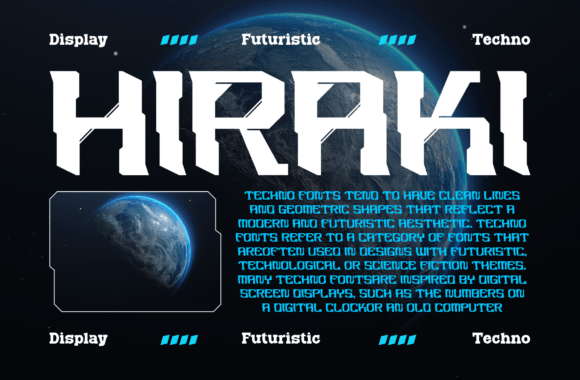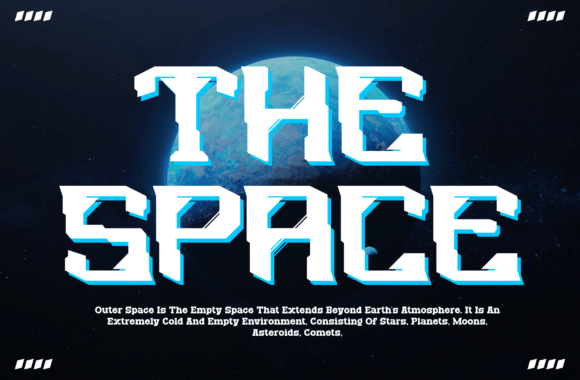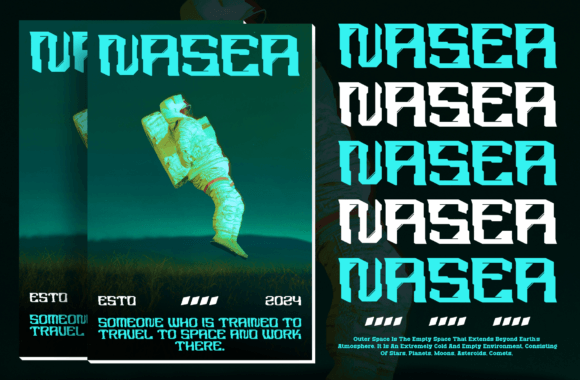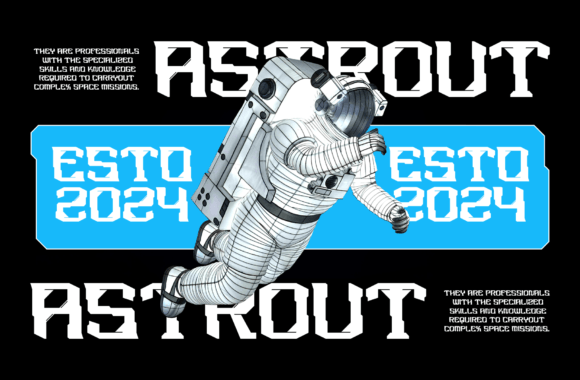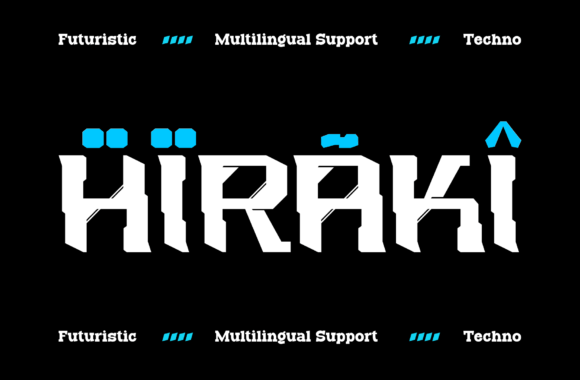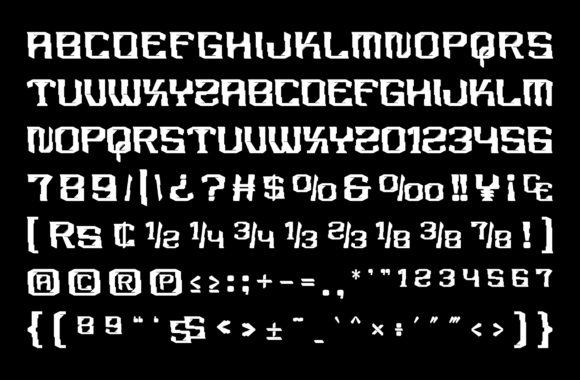
Introduction to Hiraki Font Font
Fonts play a crucial role in design, and the Hiraki Font font is a typeface that brings both character and versatility to any project. Whether you’re working on a branding project, a website, or a print design, the Hiraki Font font offers a unique style that can elevate your work.
Introducing our new product **Hiraki** – Modern Techno This Font is a type of lettering that features a futuristic design inspired by advanced technology.
This font reflects the digital era and technological advancements, bringing a sense of modernity, innovation, and energy to any design With sharp lines, geometric letter shapes, and futuristic elements, this font is suitable for projects related to technology, robotics, science, and modern lifestyle.
Key Features of Hiraki Font Font
Why Choose Hiraki Font Font?
The Hiraki Font font is more than just a typeface – it’s a design tool that helps you communicate your message with style and clarity. Its unique character set and versatile design make it suitable for a wide range of applications, from elegant invitations to bold headlines.
With its carefully crafted letterforms and balanced proportions, the Hiraki Font font ensures readability and visual appeal across all mediums.
What makes Hiraki Font font special?
The Hiraki Font font stands out with its unique design, exceptional readability, and versatility across various design applications.